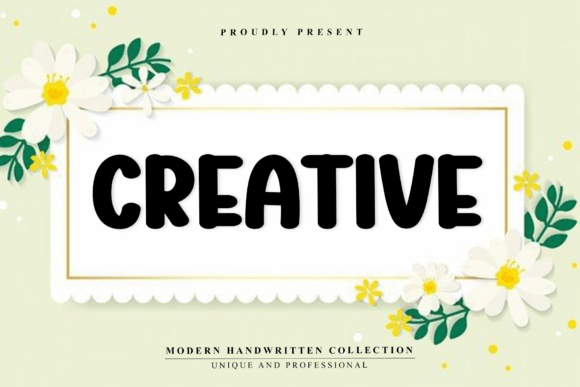
Unlocking Creativity: The Power of Creative Font
Do you remember the first time you picked up a crayon and brought a picture to life? The feeling of pure joy and unbridled creativity that came with it is something we all cherish. As designers, we strive to capture that same essence in our work, making it relatable, engaging, and accessible to all. This is where the Creative Font comes in – a game-changing typeface that injects energy and warmth into any visual communication.
With its bold, rounded, and chunky letterforms, the Creative Font is perfect for designers who want to create a lasting impression without sacrificing readability. Whether you’re working on kid-related content, fun branding, or playful packaging, this versatile font is sure to bring a smile to your audience’s faces. Its modern handwritten look makes it a valuable addition to any designer’s toolkit, offering a perfect blend of fun and professionalism.
- Unique Characteristics: Features a unique blend of modern and vintage elements, making it suitable for a wide range of design applications, from logos to body text.
Designer Review: Creative Font
Overall, I think Creative Font has a lot of potential, but it also has some areas that need improvement. ✨
- It has a unique, hand-drawn feel that can add a lot of personality to a design.
- The font is highly customizable, with a wide range of options for color, size, and style.
- The font is easy to read, even at smaller sizes.
- ⚠️ The font can look a bit cluttered when used at larger sizes or with complex text.
- ⚠️ The font doesn’t have a lot of character variations, which can make it feel a bit one-dimensional.
- ⚠️ The font is not optimized for use on screens, which can make it difficult to read on mobile devices.
Overall, I think Creative Font is a solid choice for designers who want to add a bit of personality to their designs. However, it may not be the best choice for projects that require a lot of complex text or high-resolution printing.
Tips for Getting the Most Out of Creative Font
Experiment with different font sizes, colors, and styles to create a unique and visually appealing design.
Use Creative Font in conjunction with other design elements, such as images and graphics, to add depth and interest to your design.
Use Creative Font for logos, headings, and titles to add a touch of personality and style to your design.
Use Creative Font for social media graphics, posters, and flyers to make a bold statement and grab attention.
Use Creative Font for branding and marketing materials, such as business cards and brochures, to establish a consistent and recognizable brand identity.
Alternatives to “Creative Font” for Designers
Open Sans is a clean and modern sans-serif font. It’s suitable for body text, headings, and UI elements. It’s highly legible and readable on various screen sizes and devices. Open Sans is a great alternative to Creative Font as it provides a more neutral and professional look.
Lato is a sans-serif font with a friendly and approachable feel. It’s ideal for headings, titles, and body text where a clear and elegant look is required. Lato is more condensed and modern than Creative Font, making it suitable for modern designs.
Montserrat is a sans-serif font with a strong, urban feel. It’s perfect for headings, titles, and body text where a bold and modern look is required. Montserrat is more geometric and condensed than Creative Font, making it suitable for modern and minimalist designs.